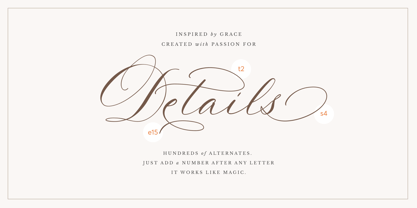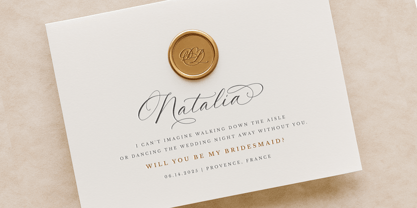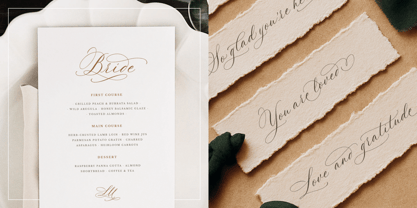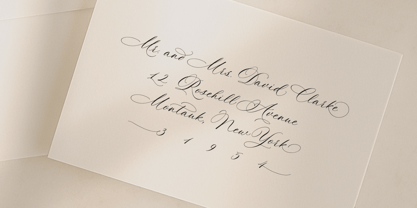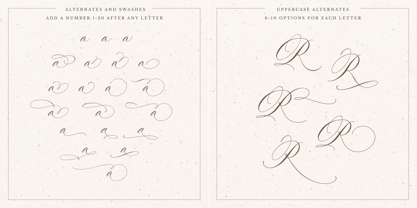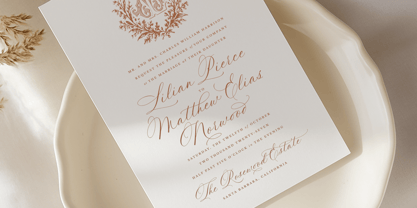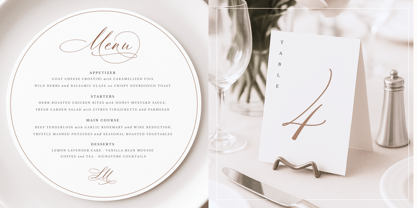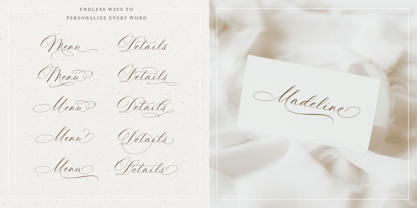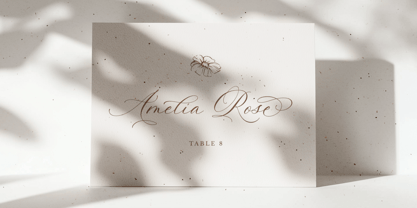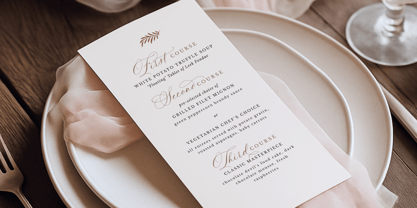
La Rumba
La familia tipográfica La Rumba fue diseñada por Dmitrii Mikitenko y publicada por BlessedPrint. La Rumba contiene 1 estilos.
La Rumba is a romantic handwritten script with a modern calligraphy look. Designed to bring elegance, charm, and freedom to your lettering, this font includes up to 20 alternate versions for each lowercase letter and 6–10 variations for each uppercase. With graceful curves and expressive strokes, La Rumba will give your wedding invitations, logos, and designs a rich, airy, and luxurious feel.
How it works:
• Activate ligatures and type a number after a letter (like A1, a2) to use alternate glyphs
• Turn on contextual alternates to automatically stylize the first and last lowercase letters of each word
• Type a plus sign (+) after some letters to access additional stylistic options
• Start swash: [1, [2 ; End swash: 1], 2]
Who is this font for:
• Wedding invitation designers
• Elegant signage and branding creators
• Calligraphy lovers
• Luxury packaging and product designers
• Tattoo artists and gift makers
• Anyone who values timeless beauty in type